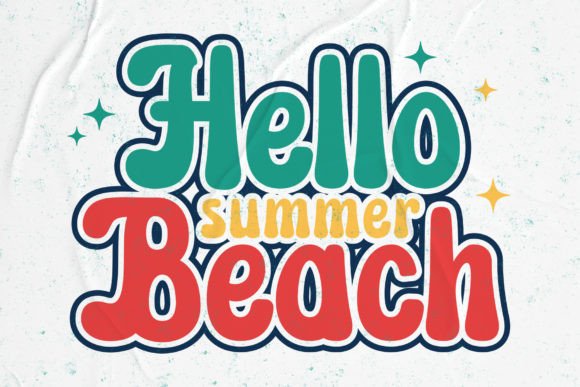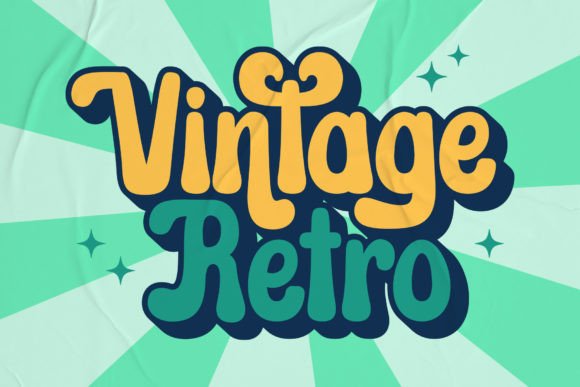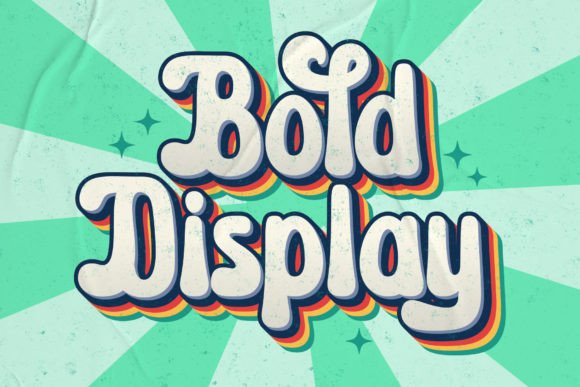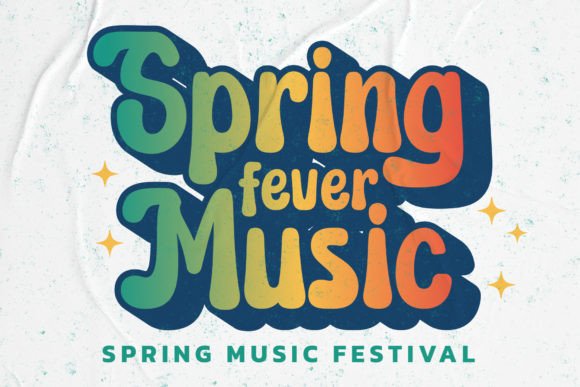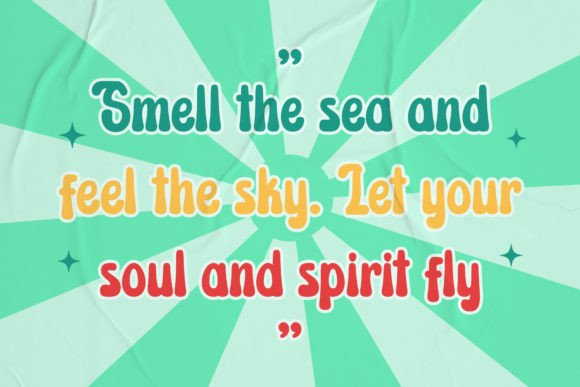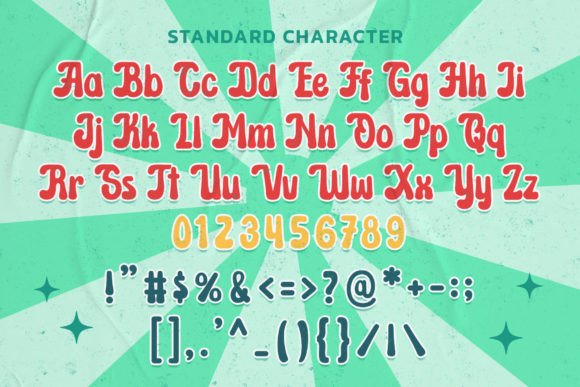
The Retro Charm of Aloha Display Font: A Designer’s Delight
I’ll never forget the time I was working on a vintage-themed wedding invitation project, and I just couldn’t find the perfect font to capture that nostalgic feel. My client was adamant about achieving a retro look, but my usual go-to fonts just weren’t cutting it. That’s when I stumbled upon Aloha Display Font, and it was love at first sight! 💕
With its cool, vintage-style charm, Aloha instantly transported me to a bygone era. I knew right then and there that it was the perfect fit for my project. And, as I soon discovered, it’s an incredibly versatile font that can be used for a wide range of design ideas, from logos and branding to social media posts and wedding designs.
So, what makes Aloha Display Font so special? Let’s dive into the good stuff! 😊
• ✨ Retro charm: Aloha has that unmistakable vintage vibe that’s perfect for creating unique and eye-catching designs.
• ✅ PUA encoded: This means you can easily access all glyphs and swashes, giving you endless creative possibilities.
• 💥 Highly versatile: Use Aloha for logos, branding, invitations, stationery, wedding designs, social media posts, and more!
• 👍 Easy to use: Whether you’re a design pro or a creative hobbyist, Aloha is simple to work with and requires minimal fuss.
Now, I’m not going to sugarcoat it – every font has its quirks. Here are a few things to keep in mind:
• ⚠️ Limited use in body text: While Aloha is amazing for headlines and titles, it’s not the best choice for lengthy body text. Stick to shorter paragraphs and use it to add visual interest.
• 🤔 Requires some experimentation: To get the most out of Aloha’s OpenType features, you may need to play around with different settings and glyphs.
The Story Behind Aloha: A Designer’s Inspiration
While the true story behind Aloha’s creation is a mystery, it’s easy to imagine a designer sitting on a Hawaiian beach, surrounded by vintage posters and distressed wood. The result is a font that’s equal parts retro charm and modern sophistication.
Q: What is Aloha Display Font? Aloha is a cool, vintage-style display font perfect for adding a retro touch to your designs.
Q: Is Aloha suitable for body text? While Aloha is amazing for headlines and titles, it’s not the best choice for lengthy body text. Stick to shorter paragraphs and use it to add visual interest.
Q: Does Aloha support OpenType features? Yes, Aloha is PUA encoded, which means you can easily access all glyphs and swashes.